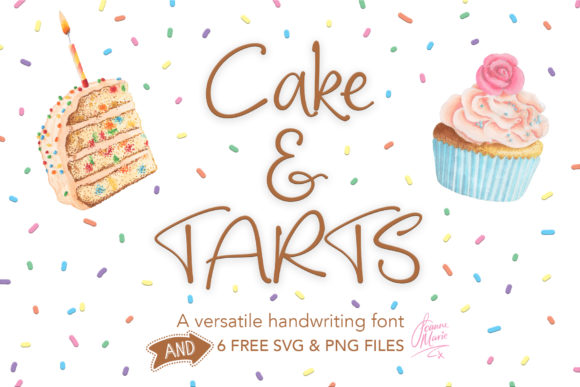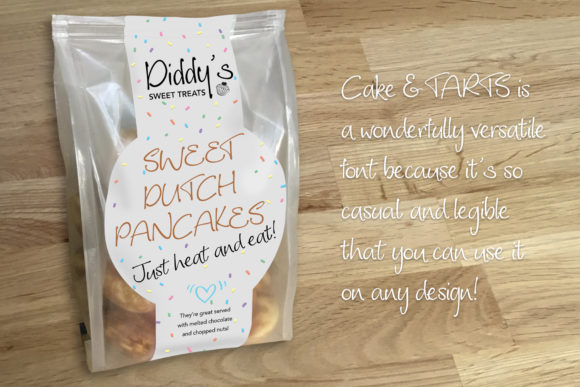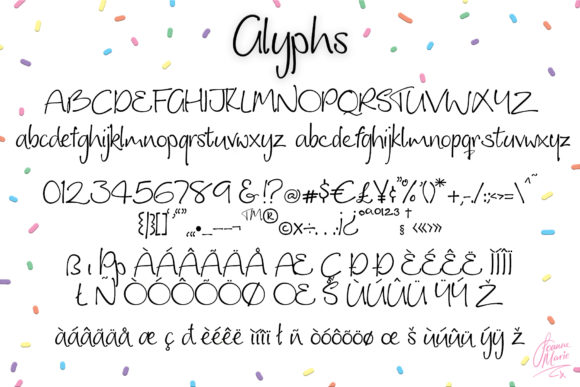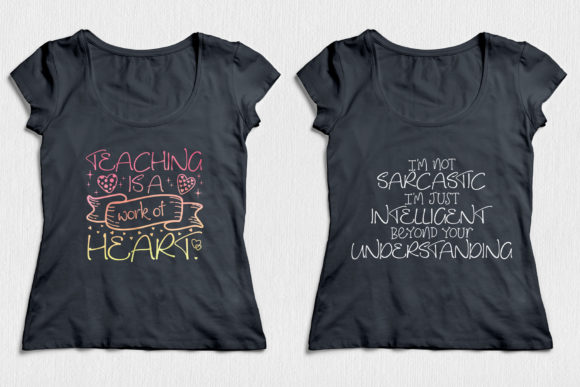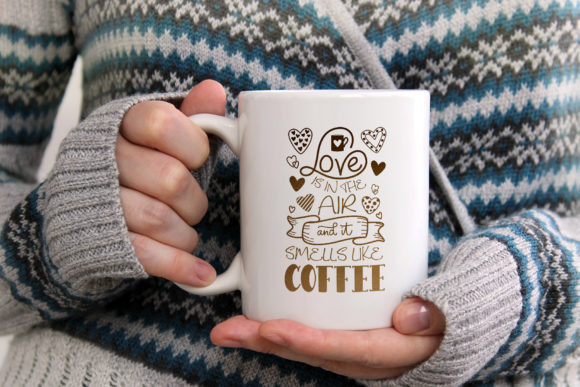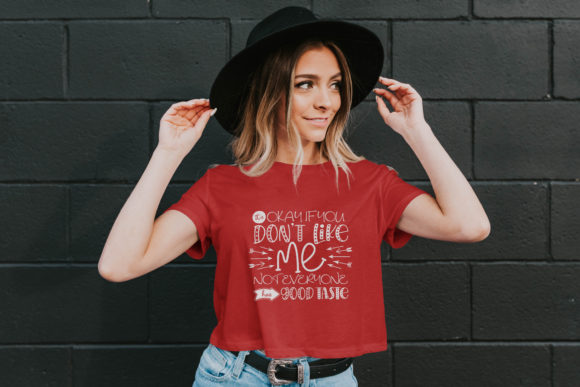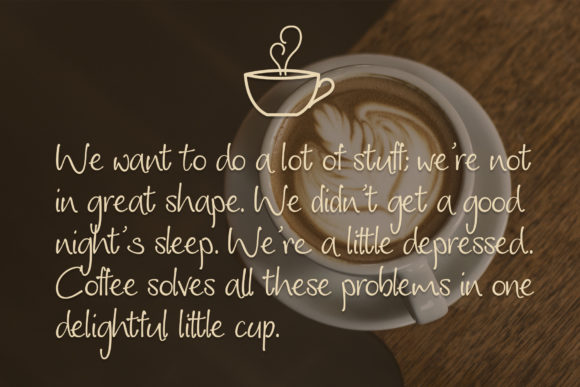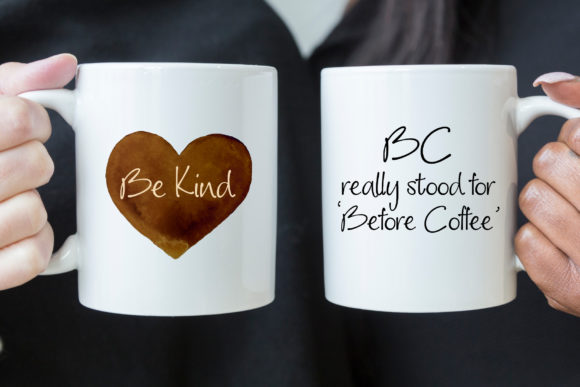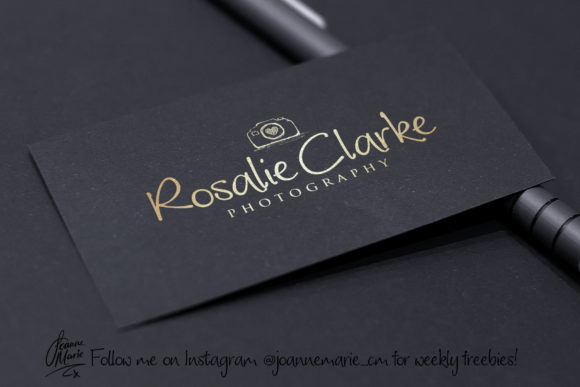
Cake and Tarts Font
About Cake and Tarts Font
Cake and Tarts is a delightful and modern handwritten font, carefully crafted to capture hearts with its delicate charm and contemporary flair. With its versatility and captivating style, this font is a perfect choice for a wide range of creative projects, allowing you to infuse your designs with a touch of elegance and sophistication.
The flowing lines of Cake and Tarts add a sense of fluidity and grace to every letter, creating a harmonious balance that draws the eye effortlessly. Whether you’re designing wedding invitations, thank you cards, quotes, greeting cards, logos, or business cards, this font enhances each project with a modern and trendy appeal, making them stand out with a fresh and stylish touch.
One of the remarkable features of Cake and Tarts is its ability to adapt to various design aesthetics, making it equally at home in both contemporary and traditional settings. Its modern charm complements the latest design trends, while its delicate nature adds a touch of timelessness that ensures your creations remain relevant and captivating for years to come.
Using Cake and Tarts in your designs is a breeze, as its smooth and well-balanced characters make it easy to read and incorporate into various layouts. The font’s modern twist is further enhanced by its use of alternate glyphs and swashes, offering you a range of creative possibilities to personalize and customize your projects effortlessly.
From breathtaking wedding invitations to eye-catching social media posts and stunning stationary art, Cake and Tarts elevates each creation to new heights of beauty and sophistication. Its ability to evoke emotions and capture attention makes it a go-to choice for designers seeking to make a lasting impact with their work.
In conclusion, Cake and Tarts is a delicate and modern handwritten font that will surely steal your heart with its versatile style and contemporary appeal. It is the perfect companion for designers aiming to create gorgeous and captivating wedding invitations, stationary art, social media posts, and more. Fall in love with Cake and Tarts, and let its charming elegance inspire your most beautiful and memorable designs.